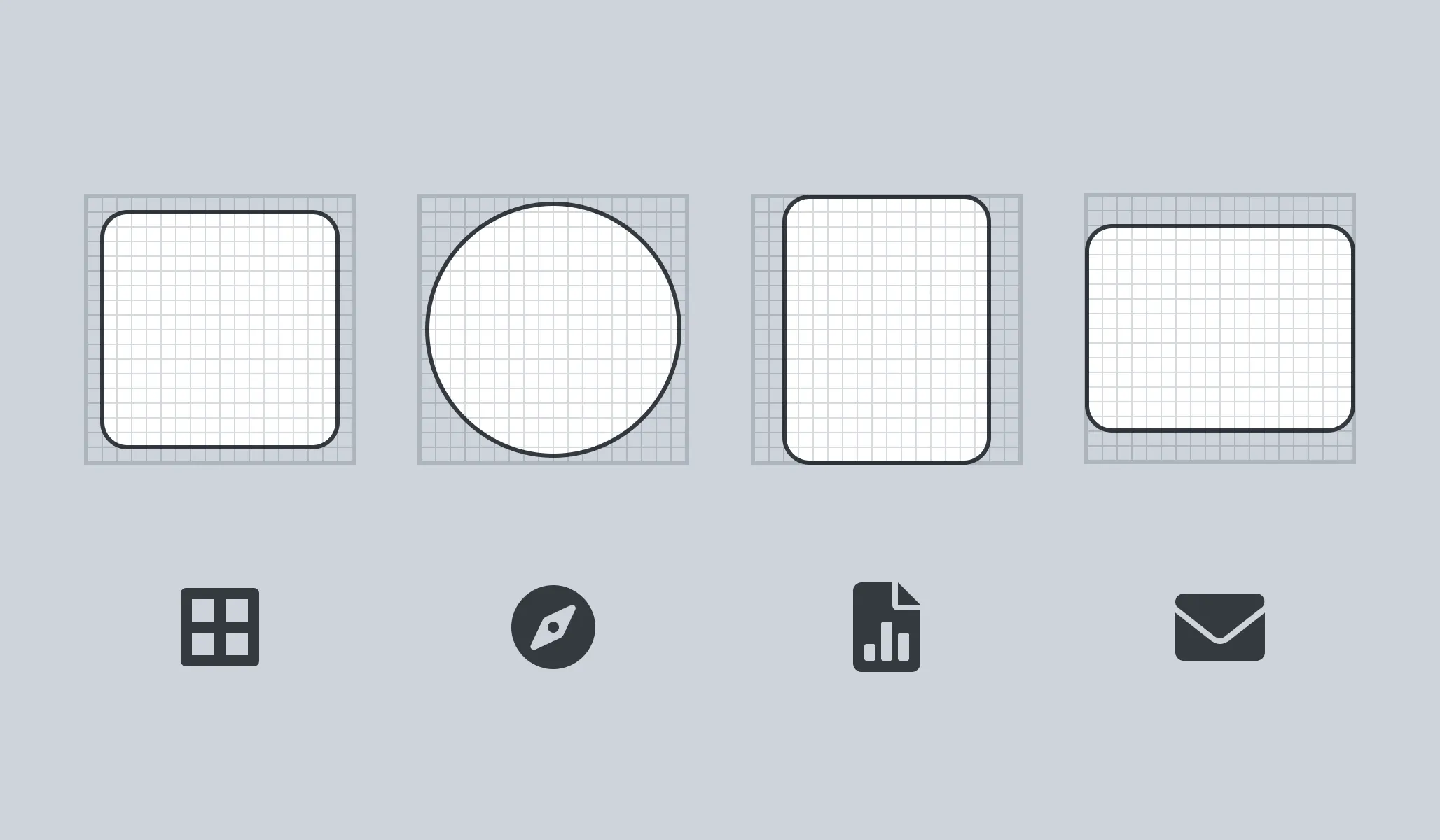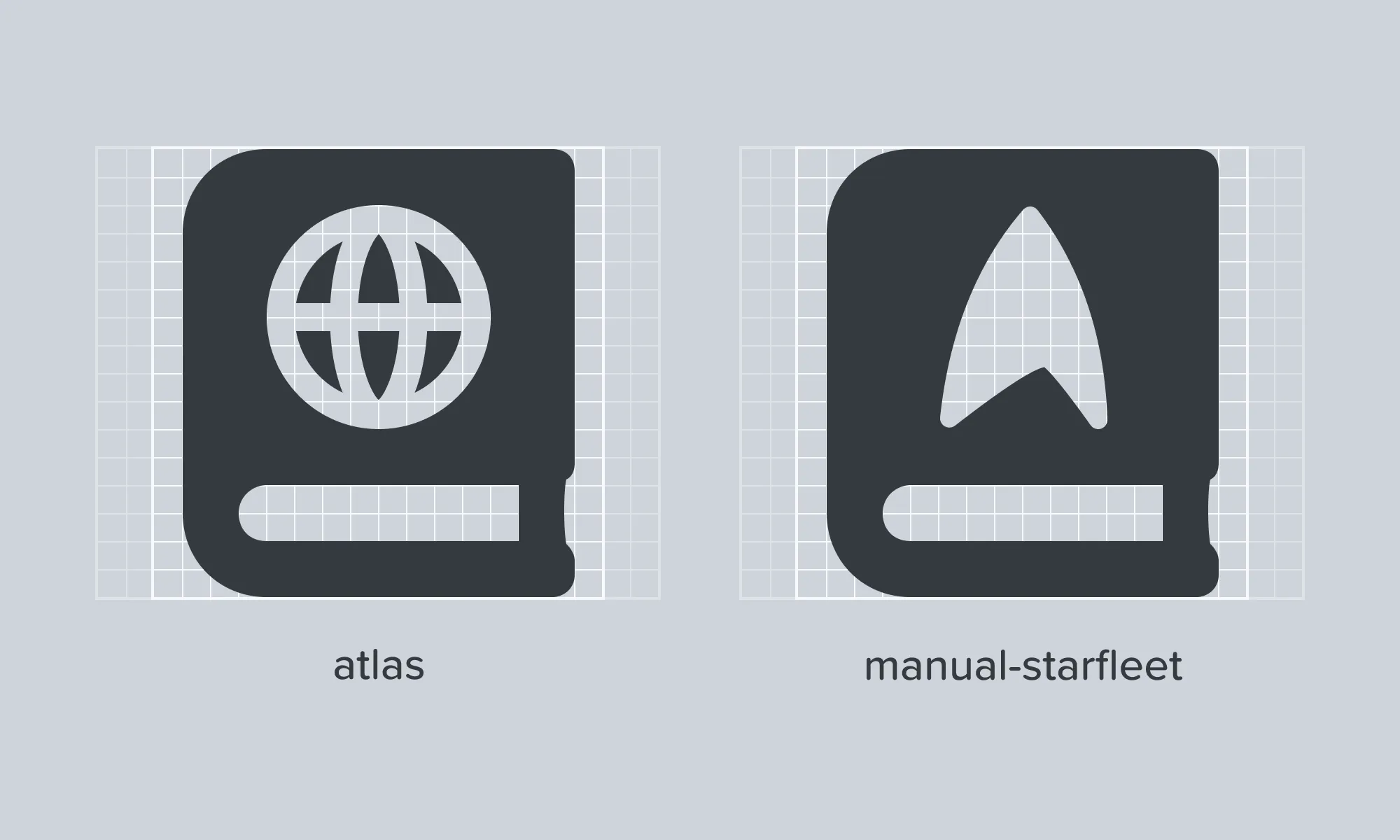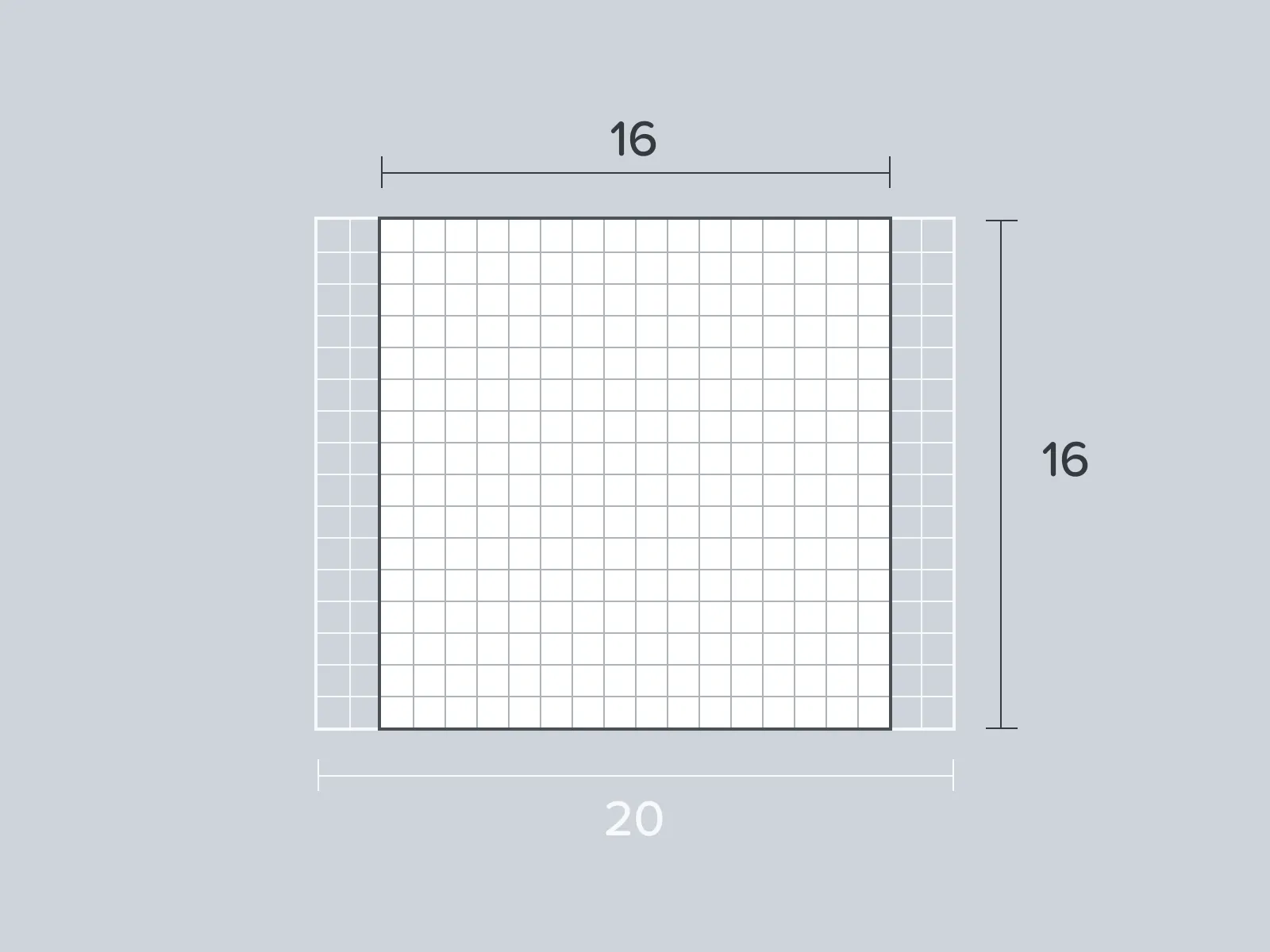
Icon Design Guidelines
With a few key concepts in mind, you can create great looking custom icons that will fit right in and be able to use all the awesome of Font Awesome.
Font Awesome’s icons have been designed for easy use in digital interfaces so they’ve been optimized for legibility alongside the default web browser font size of 16 pixels. In order to create pixel-perfect and visually consistent icons, we design all of our icons using a 16 pixel-based icon grid and default shape guidelines.
That icon grid sets a base width and height of 16 pixels by 16 pixels. The grid has an additional 4 pixel horizontal overflow to accommodate icons with a wider footprint.
The Font Awesome 16 pixel grid has built in horizontal overflow (taking its max width to 20 pixels)
Section titled “Shapes on the Grid”We’ve defined the size of shapes (such as circles, squares, and rectangles) using our icon grid.
Our square, circle, vertical rectangle, and horizontal rectangle paired with icons that are based on each shape
When making your own icons using our icon grid, you’ll want to keep these shapes in mind and even recreate their sizes directly.
| Shape | Size |
|---|---|
| Square | 14 pixels by 14 pixels |
| Circle | 15px diameter |
| Rectangle (Vertical) | 12 pixels by 16 pixels |
| Rectangle (Horizontal) | 16 pixels by 12 pixels |
Section titled “Font Awesome Grid”When you upload your own icons to a kit, we’ll translate that icon onto our icon grid. We do this to ensure uploaded icons’ size and appearance will look right at home when side-by-side with official Font Awesome icons. Using our grid and guidelines when designing your own icon goes a long way to making that translation accurate and easy.
Using our grid system, you can make design choices that are consistent with official Font Awesome icons (and even extend official icons like the one above)